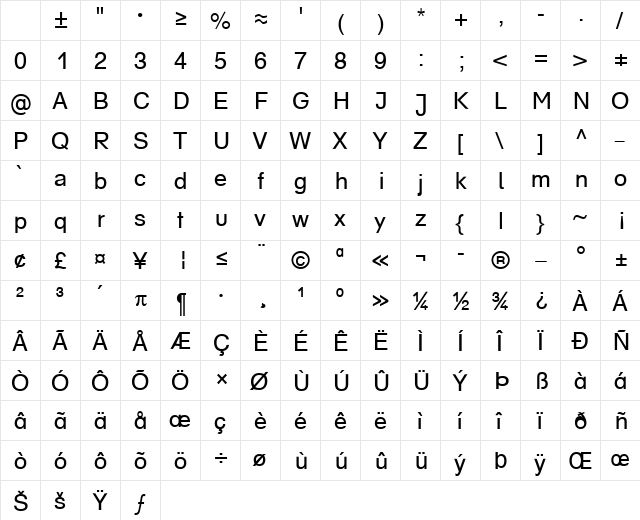
MathStandard Becker Normal
Complete MathStandard Becker Normal glyph index. Displaying only characters natively supported by MathStandard Becker Normal font.
Design Context for MathStandard Becker
MathStandard Becker is a composed and adaptable typeface that performs quietly and consistently across a wide range of design contexts.